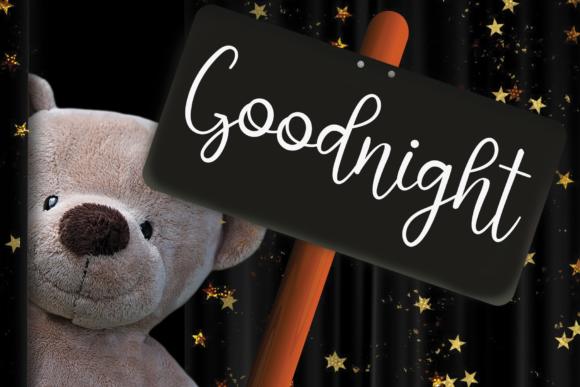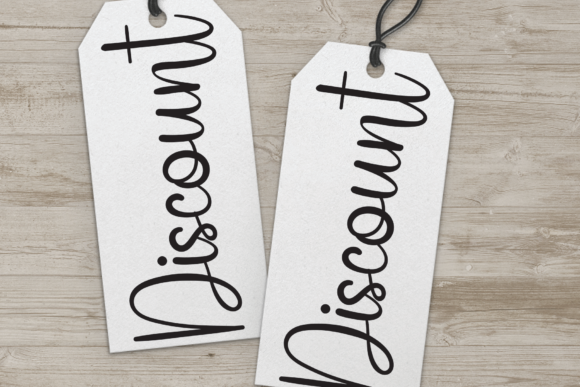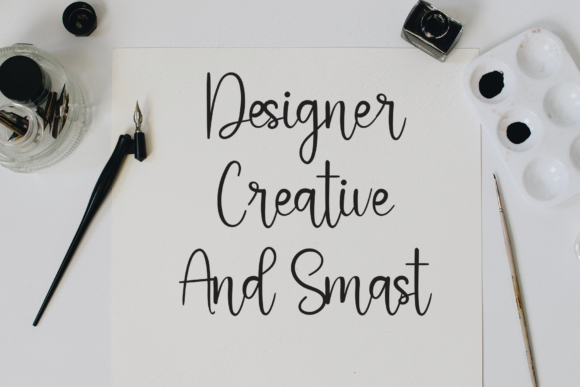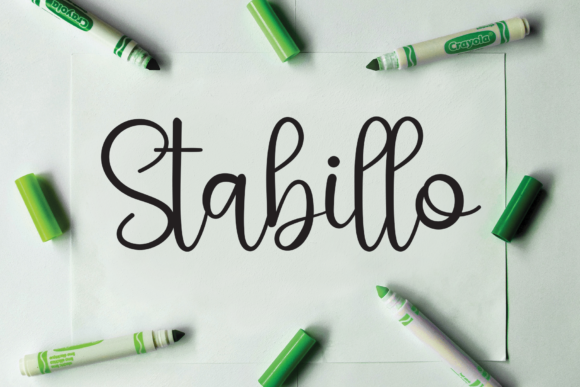
Introduction to Mellody Font
Mellody is a romantic and sweet calligraphy typeface with characters that dance along the baseline.
It has a casual, yet elegant touch This original look will appeal to a wide range of crafty ideas, from letterheads and titles, to stationery.
Key Features of Mellody Font